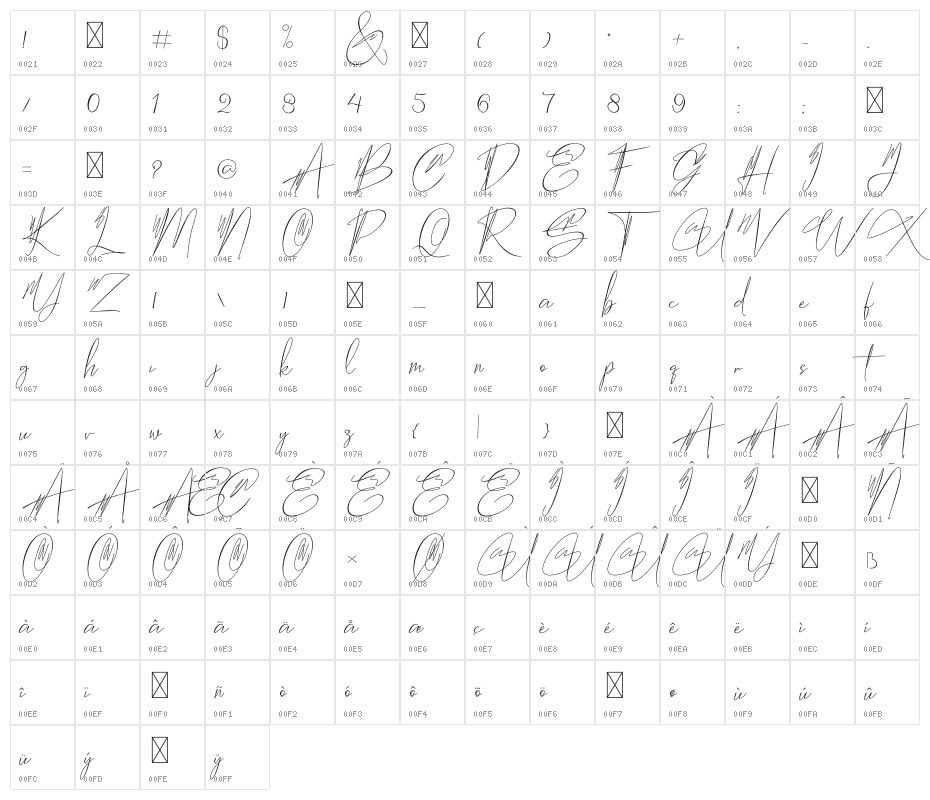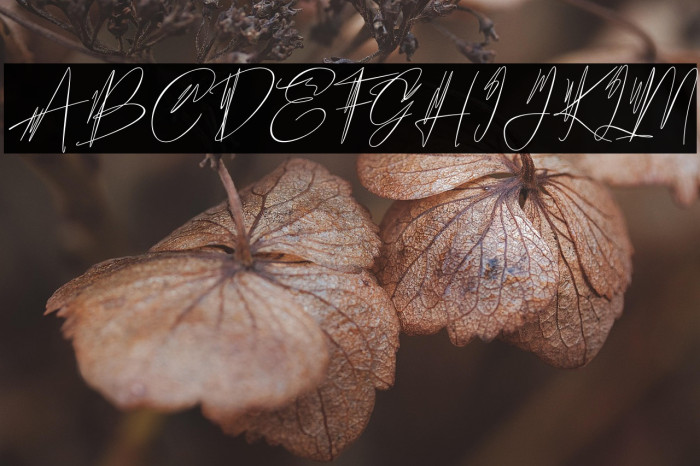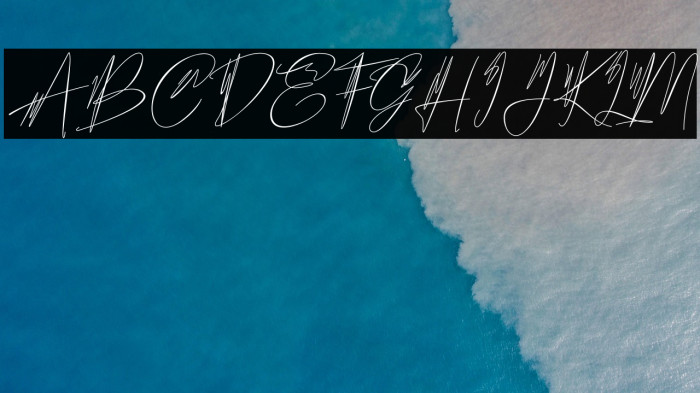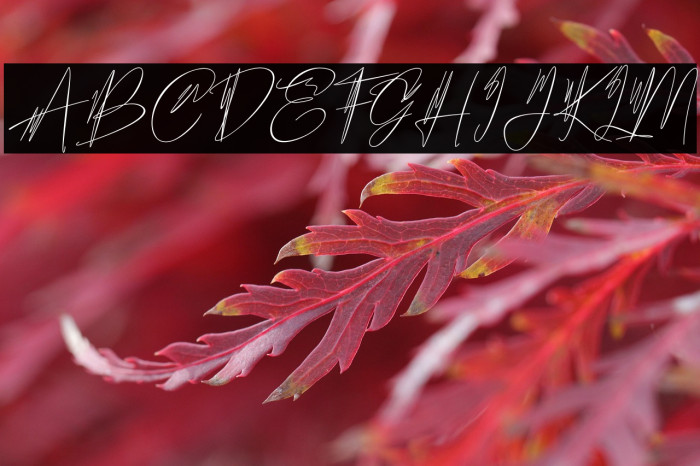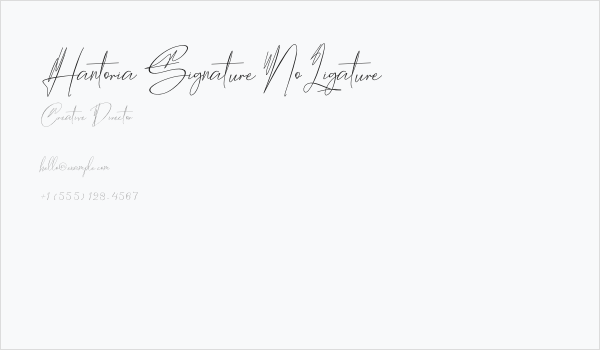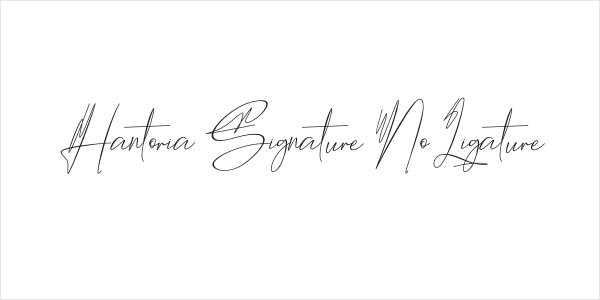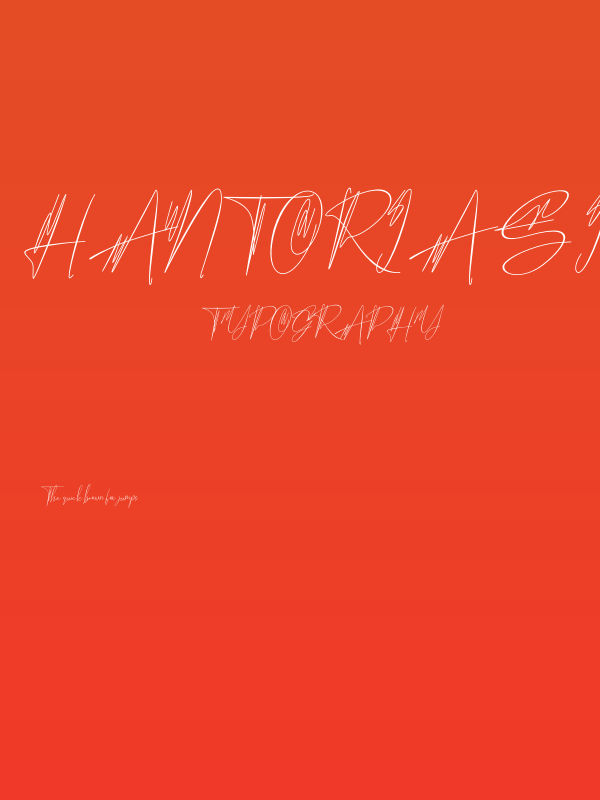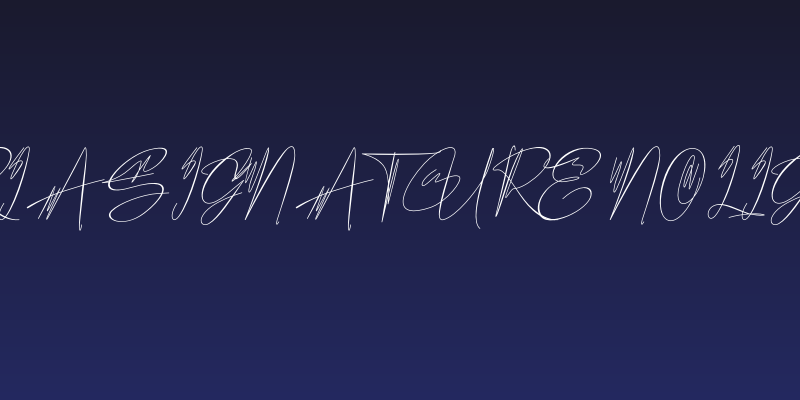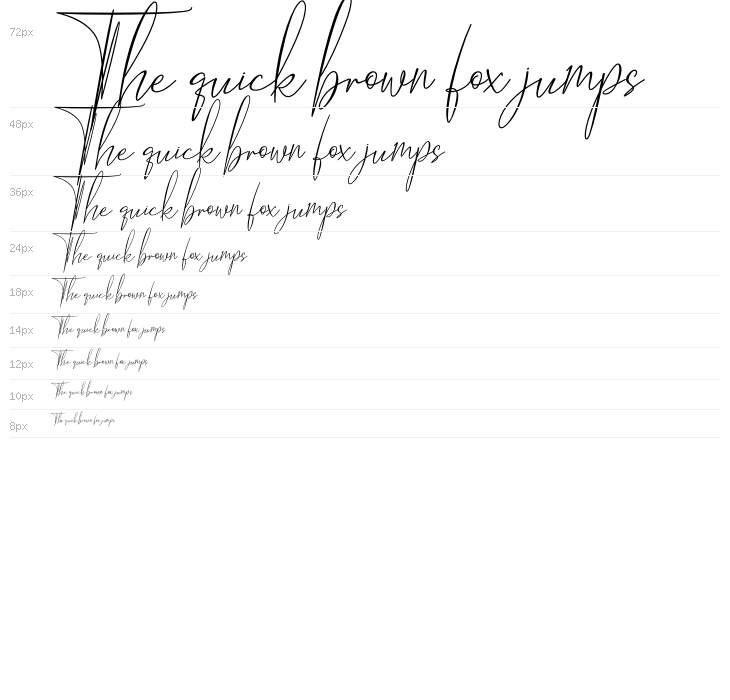
Hantoria Signature NoLigature Font
Hantoria Signature NoLigature Description
This font features a delicate and elegant script style, characterized by its flowing, cursive letterforms. The uppercase letters exhibit a graceful and airy quality, with long, sweeping strokes that give a sense of movement and fluidity. The lowercase letters maintain this elegance, with a slightly more compact form that enhances readability while preserving the overall aesthetic. The numerals are consistent with the script style, offering a harmonious blend of curves and lines. Special characters are thoughtfully designed to complement the alphabet, ensuring a cohesive look across all text. This font's thin strokes and high contrast between thick and thin lines contribute to its sophisticated appearance, making it ideal for projects that require a touch of refinement.